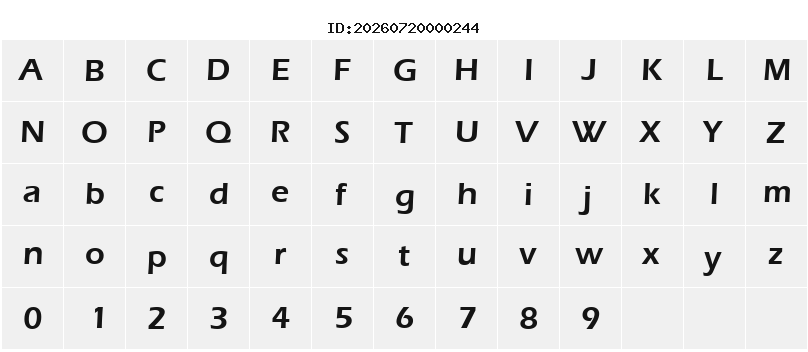
• Font Name: Ennis-Demi
• Designer: SoftMaker Software GmbH
About Ennis-Demi.ttf
Ennis-Demi.ttf is a modern, elegant sans-serif font designed for ultimate readability and visual harmony. Perfect for branding, headlines, web design, and print materials.